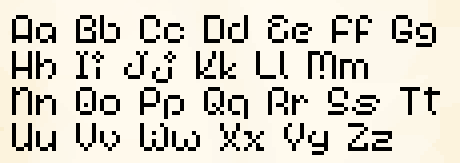
Marga Font
A whimsy and stylish font with unicode support.
Unicode with special characters support (BETA)
Non-latin characters support - Cyrillic (BETA)
Non-latin characters support - Greek (BETA)